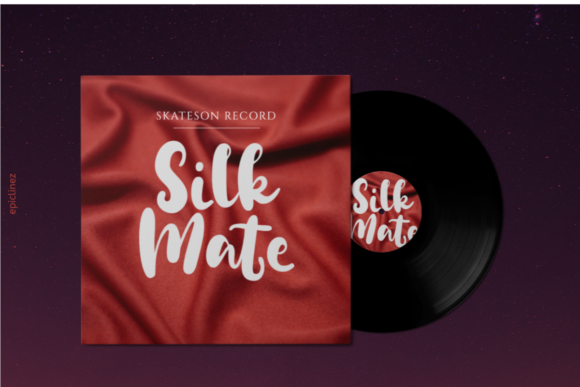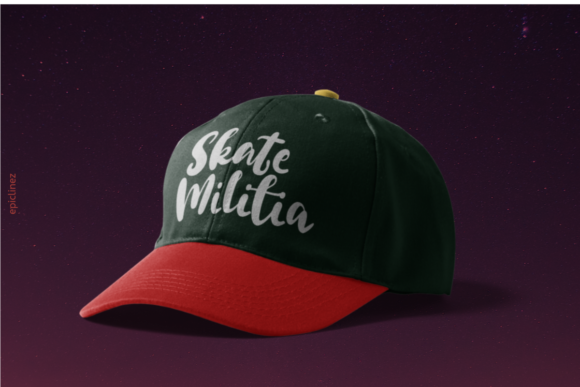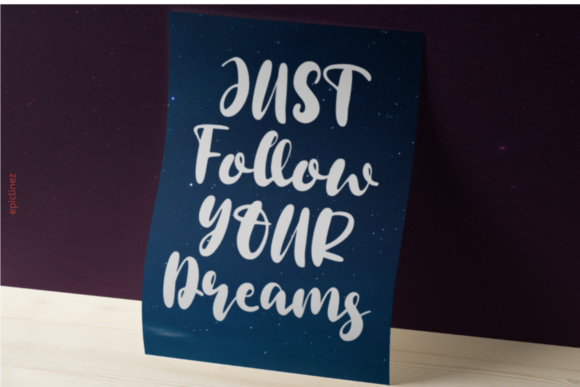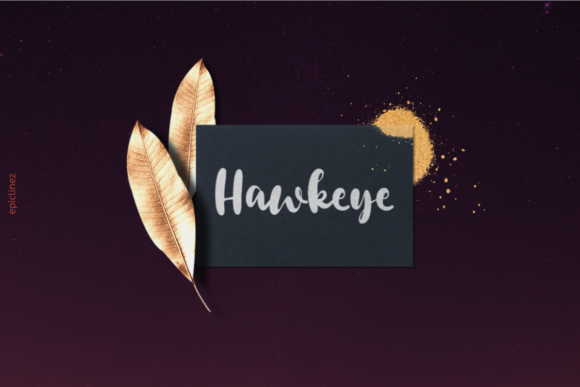
Introduction to Purple Sky Font
Have you ever found yourself in a creative moment where the perfect font is the missing piece that brings your project to life? For many designers, this feeling is all too familiar. That’s why we’re excited to introduce you to the Purple Sky Font, a bold and fun script font that’s sure to elevate your creations.
This free download is a valuable addition to any designer’s toolkit, offering a high-quality design resource that’s perfect for logotype and crafting. With its unique, hand-drawn style, the Purple Sky Font is sure to add a touch of personality to your designs. Whether you’re working on a personal project or a client’s request, this font is sure to make a statement.
- Unique, hand-drawn design elements and flourishes add a touch of elegance and sophistication to any creative project.
Honest Review: Purple Sky Font
As a designer, I’m always on the lookout for high-quality fonts to elevate my creative projects. Recently, I had the chance to work with the Purple Sky Font, and I’m excited to share my thoughts.
What works well: ✨ The Purple Sky Font is incredibly versatile, suitable for a wide range of designs, from modern logos to elegant typography. The font’s transparent background makes it easy to combine with other design elements, allowing for endless creative possibilities.
Limitations: ⚠️ While the Purple Sky Font is an excellent addition to any design resource, it may not be the best choice for projects requiring a more traditional or formal tone. Additionally, the font’s style may be too modern for some designs.
Overall, I’m impressed with the Purple Sky Font’s versatility and high-quality design. As a valuable addition to any design resource, it’s definitely worth considering for your next creative project.
Use Purple Sky Font on a transparent background to create a stunning visual effect. You can also experiment with different font sizes and colors to add depth and creativity to your design.
Purple Sky Font is perfect for creating eye-catching social media graphics, promotional materials, and branding elements. Its high-quality design makes it a great addition to any creative project.